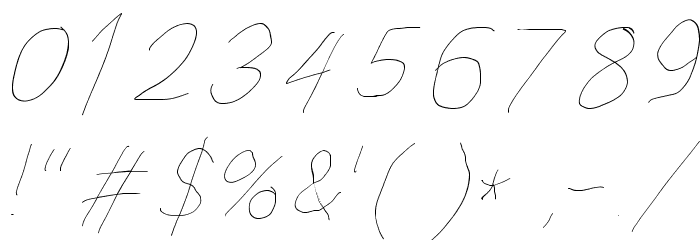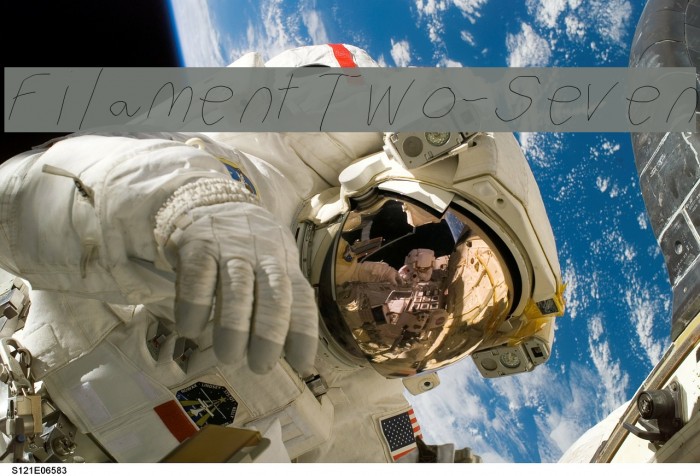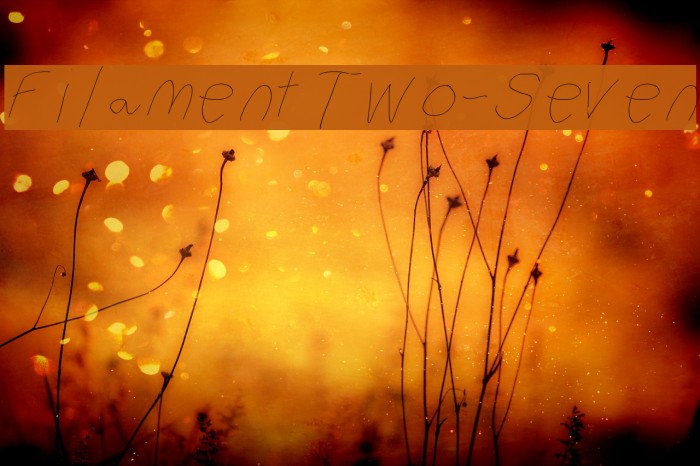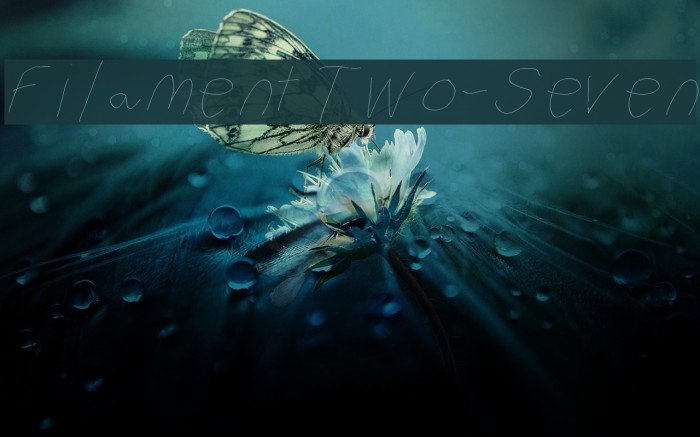
Filament Two-Seven Font
This font features a delicate, hand-drawn style with thin, flowing lines that give it a light and airy appearance. The characters are slightly slanted, resembling a casual handwritten script. Each letter maintains a consistent stroke width, contributing to a harmonious and cohesive look. The uppercase and lowercase letters are distinct yet complementary, with a playful and informal vibe. Numbers and special characters follow the same aesthetic, ensuring uniformity across all glyphs. The overall design is simple yet elegant, making it suitable for projects that require a personal touch.
A delicate, hand-drawn font with thin, flowing lines and a casual handwritten style.
- Proposed Projects: Ideal for personal invitations, greeting cards, casual branding, and creative projects that require a handwritten touch.
- Overall Style: Casual, Elegant
- Use Case: Invitations, Greeting cards, Casual branding